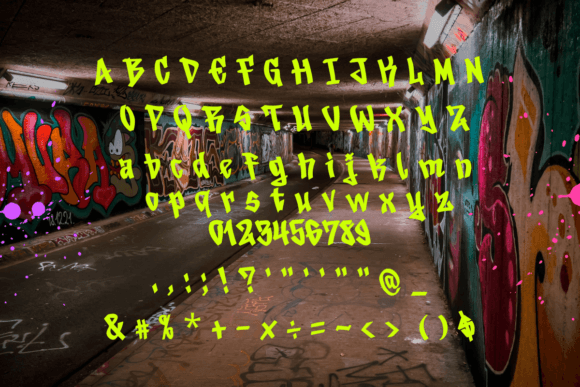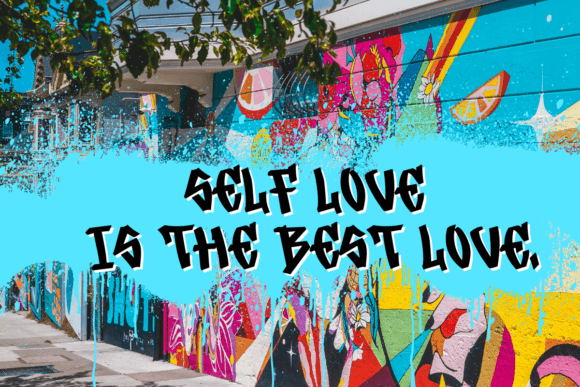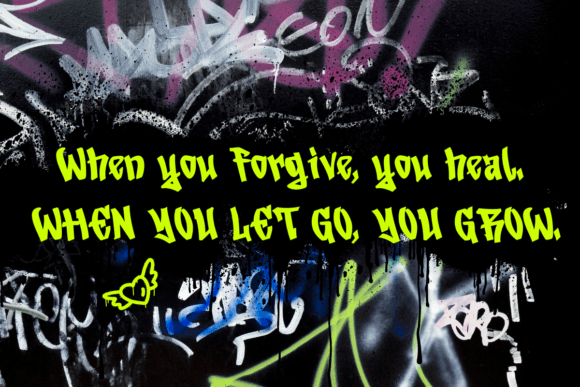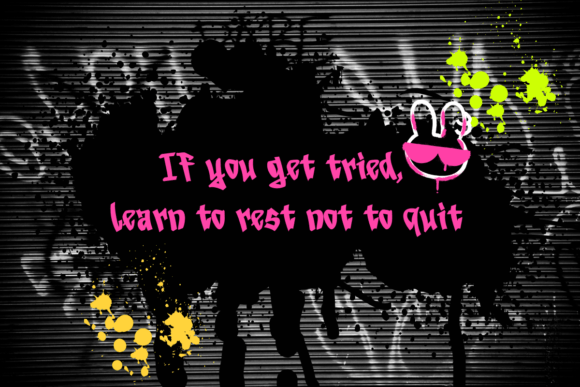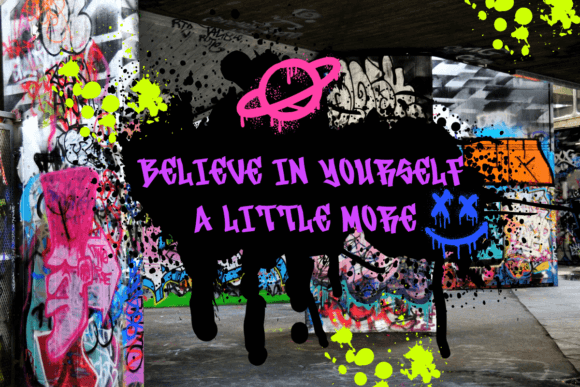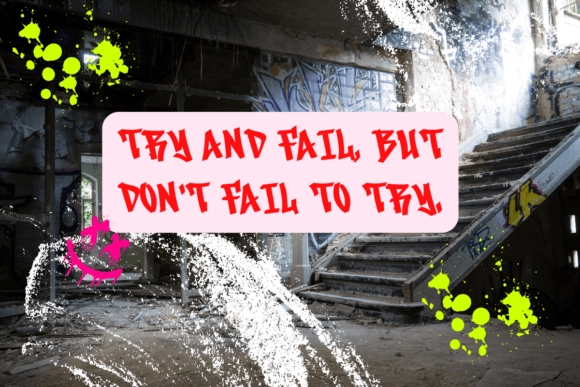
Unleash Your Creativity with Graffity Font: A Street Art Style Handwritten Font
Are you a designer, crafter, or artist looking for a unique and creative way to express yourself? Look no further than Graffity Font, a street art style handwritten font that’s perfect for a variety of projects. In this article, we’ll explore the world of Graffity Font and how you can use it to take your designs to the next level.
What is Graffity Font?
Graffity Font is a street art style handwritten font that’s inspired by the vibrant and eclectic world of graffiti. With its bold, expressive lines and playful vibe, this font is perfect for adding a touch of urban flair to any design. Whether you’re creating a personal project or working on a client’s behalf, Graffity Font is sure to make a statement.
Uses for Graffity Font
One of the best things about Graffity Font is its versatility. While it’s perfect for informal, personal projects like taking notes, writing a diary, or making greeting cards, it’s also surprisingly effective for more commercial applications. Here are just a few ideas to get you started:
- Banners: Use Graffity Font to create eye-catching banners for events, promotions, or sales. Its bold, playful vibe is sure to grab attention and add a touch of personality to your marketing efforts.
- Social Media Posts: Add a touch of street art style to your social media posts with Graffity Font. Whether you’re sharing a quick update or promoting a new product, this font is sure to make your content stand out.
- Mugs and Water Bottles: Create custom mugs and water bottles with Graffity Font for a unique and functional promotional item. Perfect for businesses, events, or personal gifts.
- Cards and Stationery: Use Graffity Font to create one-of-a-kind cards, invitations, and stationery that are sure to impress. From birthday cards to wedding invitations, this font adds a touch of personality and whimsy to any design.
- Shirts and Apparel: Take your t-shirt designs to the next level with Graffity Font. Whether you’re creating custom apparel for a business, event, or personal project, this font is sure to make a statement.
Tips for Using Graffity Font
While Graffity Font is incredibly versatile, there are a few tips to keep in mind to get the most out of this amazing font:
- Keep it Simple: While Graffity Font is bold and playful, it’s best used in moderation. Keep your design simple and focused to let the font shine.
- Experiment with Colors: Graffity Font looks amazing in a variety of colors, from bold brights to more muted pastels. Experiment with different color combinations to find the perfect look for your design.
- Mix and Match: Don’t be afraid to mix and match Graffity Font with other fonts and design elements. This font is perfect for adding a touch of personality to a design, but it can also be paired with more traditional fonts for a unique look.
Graffity Font is an amazing street art style handwritten font that’s perfect for designers, crafters, and artists of all levels. With its bold, playful vibe and incredible versatility, this font is sure to become a go-to in your design arsenal. Whether you’re creating personal projects or working on commercial designs, Graffity Font is the perfect choice for adding a touch of personality and whimsy to your work.